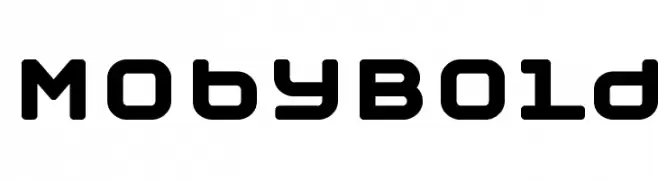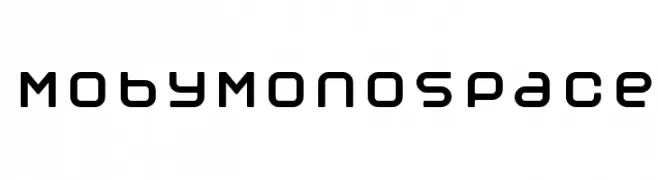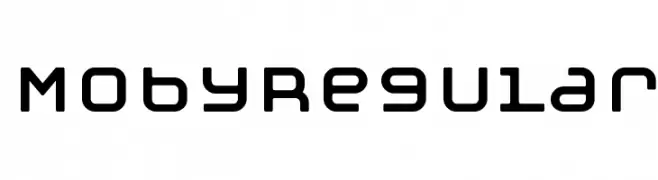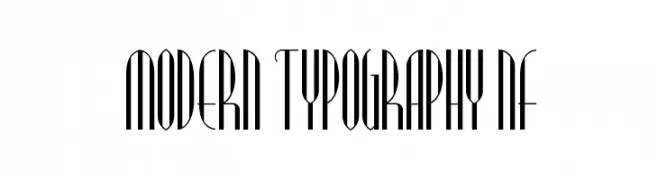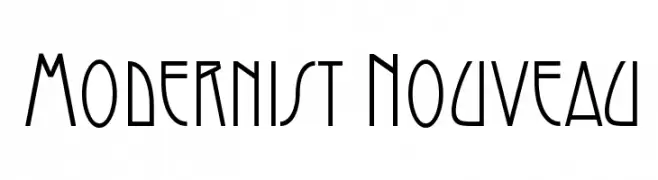
• MobyBold
• MobyMonospace
• MobyRegular
• Modern Typography NF
A tall, narrow font with high contrast and modern elegance.
• ModernHeros
A decorative font with playful cartoon-style illustrations for each character.
• Modernist Nouveau
A modern, art nouveau-inspired font with geometric shapes and elongated forms.
• ModernTypographyNF
A tall, narrow font with high contrast and elegant, modern styling.
• Mohawk
A bold, distressed font with a rugged, grunge appearance.
• MonAmourAprilFraktur
A decorative blackletter font with intricate details and a medieval aesthetic.
• MonAmourCapsAprilFraktur
An ornate blackletter font with characters encased in circular borders.